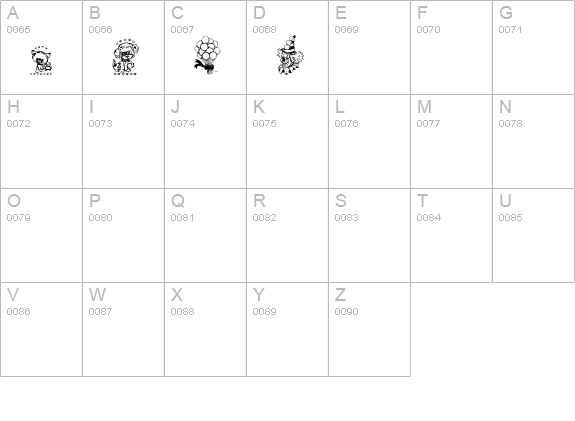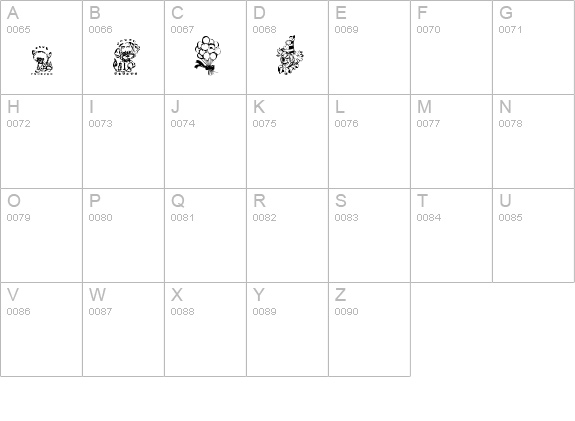
Baby's Breath Kids DingsRegular Font Details
The Baby's Breath Kids DingsRegular font is a delightful and whimsical typeface that will add a touch of playfulness to any design project. With its charming and childlike letterforms, this font is perfect for creating eye-catching headlines, invitations, and logos for children's parties, book covers, and more. This font features a collection of adorable doodle-like illustrations that include animals, toys, and other fun elements that will surely capture the imagination of children and adults alike. Each character is carefully crafted with attention to detail, giving them a hand-drawn quality that adds a personal and warm touch to your designs. What's even better is that Baby's Breath Kids DingsRegular font is available for free! Yes, you read that right. You can freely download this font at FontsMarket.com, a trusted source for high-quality fonts. Whether you're a professional designer or a parent looking to create a special birthday invitation for your little one, this font is a fantastic choice that won't cost you a penny. So, why wait? Add a dose of whimsy and joy to your designs with the Baby's Breath Kids DingsRegular font. Download it for free today at FontsMarket.com and let your creativity soar.